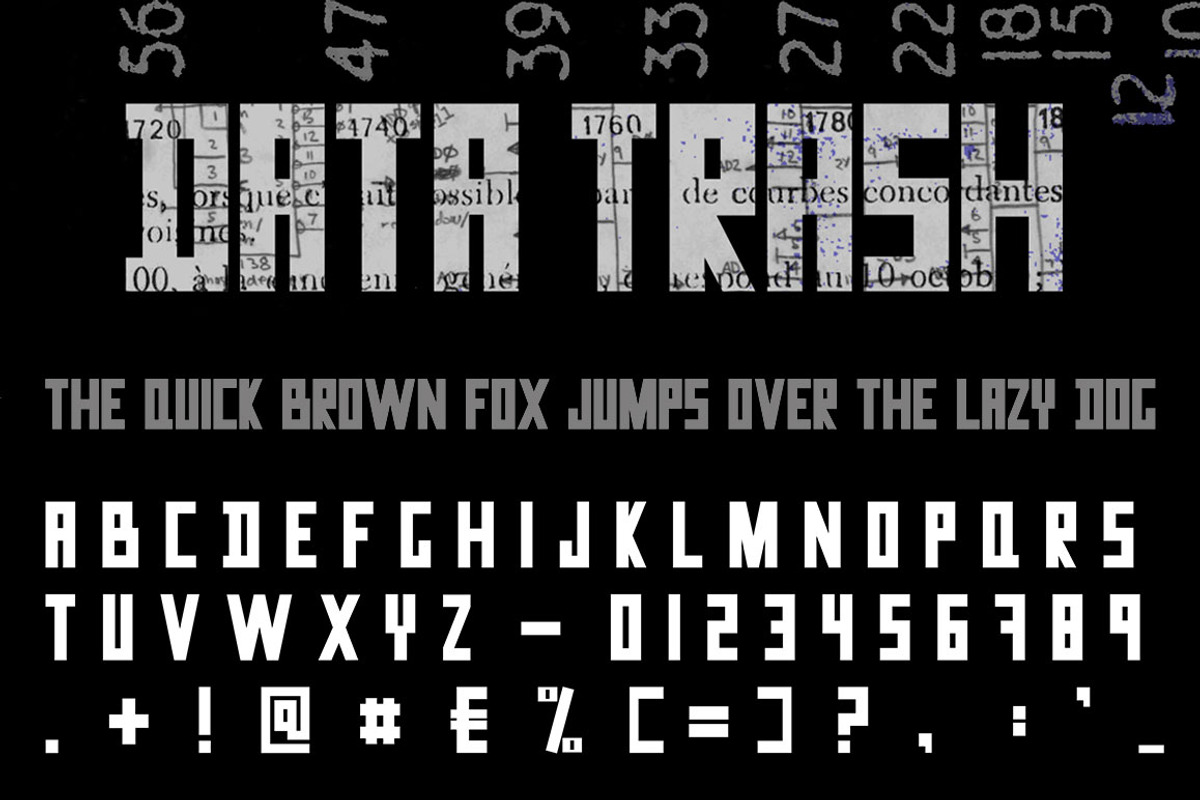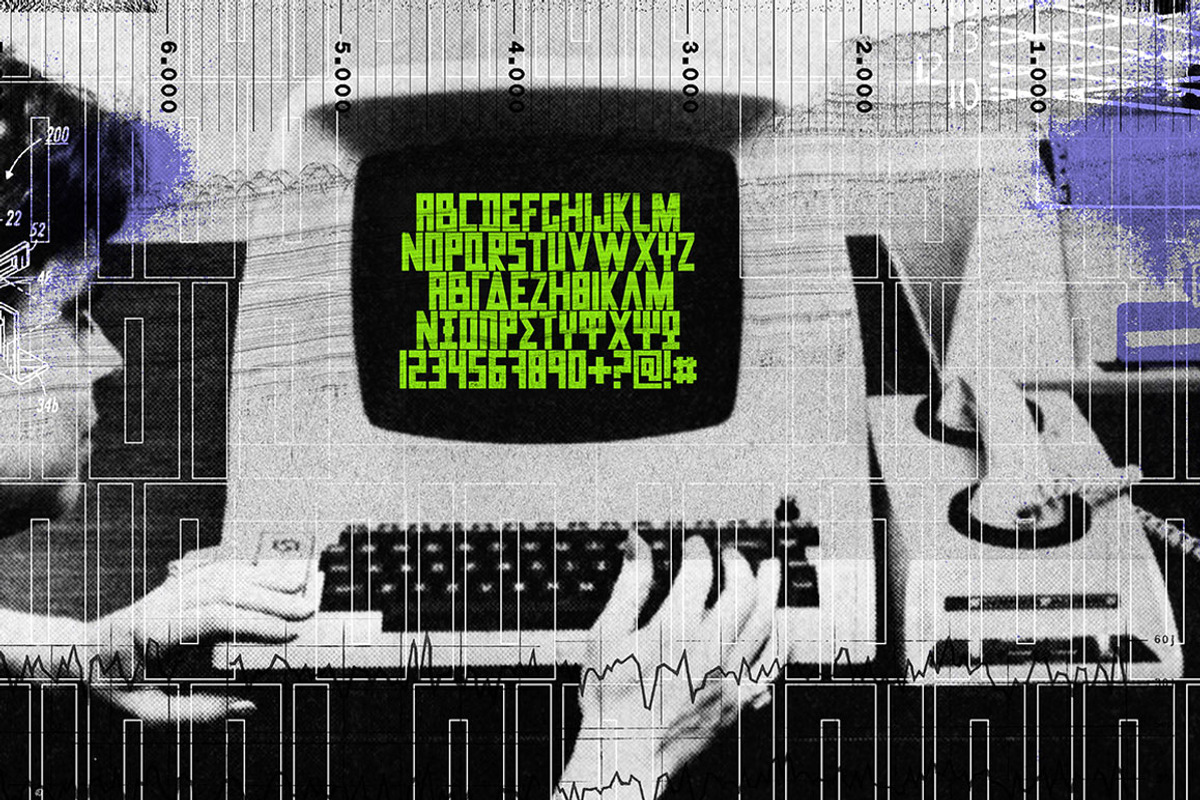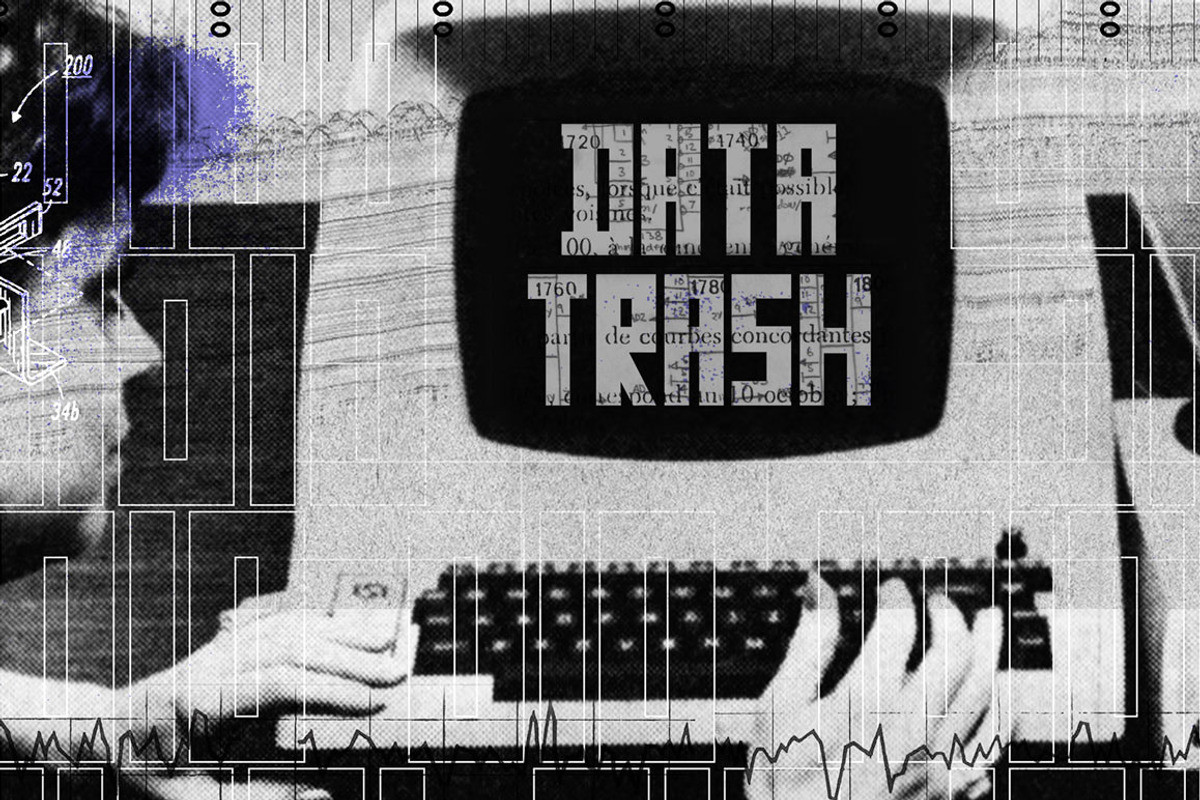
Data Trash Retro Futuristic Font
Data Trash Retro Futuristic Font by sirylok is a font selected for branding, posters, packaging, typography.
- Uppercase only, has basic English and Greek character set.
Why Data Trash Retro Futuristic Font is worth a look
Data Trash Retro Futuristic Font by sirylok fits naturally into Branding, posters, packaging, typography.